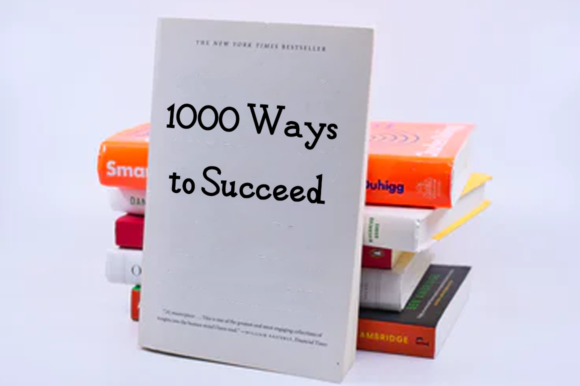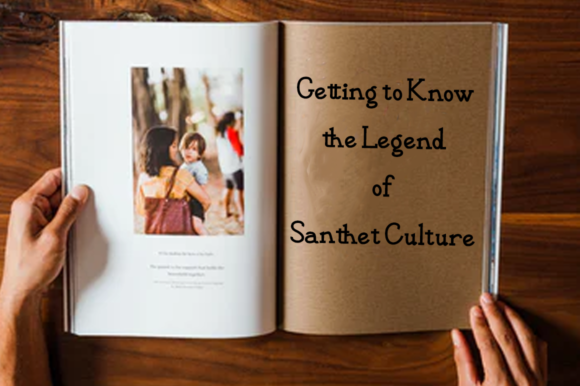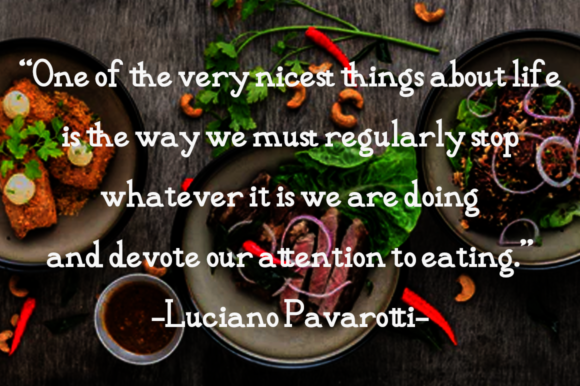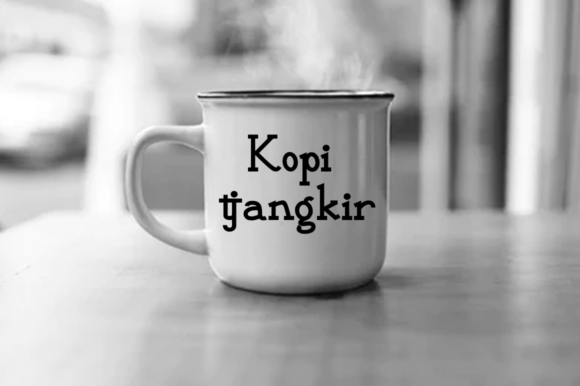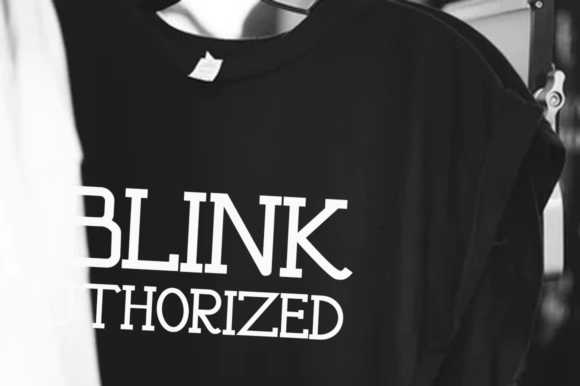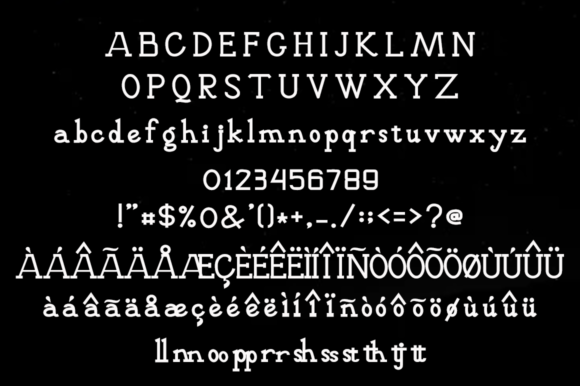
Dollopo Font: Elevate Your Crafting Ideas with a Cool and Adaptable Slab Serif Font
Are you a designer, crafter, or DIY enthusiast looking for a font that can add a touch of personality to your projects? Look no further than Dollopo, a cool and adaptable slab serif font that’s perfect for a wide range of crafting ideas. From cards and invitations to branding, labels, and more, Dollopo is the perfect addition to your font collection.
What is Dollopo Font?
Dollopo is a slab serif font that’s designed to be both stylish and versatile. Its unique blend of modern and classic elements makes it perfect for a variety of projects, from modern branding to vintage-inspired crafts. With its sturdy and dependable design, Dollopo is sure to make a statement in any project.
Features of Dollopo Font
So what makes Dollopo font so special? Here are just a few of its key features:
- Cool and Adaptable Design: Dollopo’s slab serif design is both modern and timeless, making it perfect for a wide range of projects.
- Highly Versatile: Whether you’re creating cards, branding, labels, or more, Dollopo is the perfect font to add a touch of personality to your project.
- Easy to Read: Despite its bold and sturdy design, Dollopo is surprisingly easy to read, making it perfect for both headlines and body text.
- Perfect for DIY Projects: Whether you’re a crafter, DIY enthusiast, or professional designer, Dollopo is the perfect font to add a personal touch to your projects.
Uses for Dollopo Font
So what can you use Dollopo font for? The possibilities are endless! Here are just a few ideas to get you started:
- Cards and Invitations: Add a personal touch to your cards and invitations with Dollopo’s unique and stylish design.
- Branding and Logo Design: Use Dollopo to create a bold and memorable brand identity that will stand out from the crowd.
- Labels and Packaging: Add a touch of personality to your labels and packaging with Dollopo’s versatile and adaptable design.
- DIY Crafts: From scrapbooking to woodworking, Dollopo is the perfect font to add a personal touch to your DIY projects.
Why Choose Dollopo Font?
So why choose Dollopo font over other fonts? Here are just a few reasons:
- Unique Design: Dollopo’s slab serif design is both stylish and timeless, making it perfect for a wide range of projects.
- Highly Versatile: Whether you’re creating cards, branding, labels, or more, Dollopo is the perfect font to add a touch of personality to your project.
- Easy to Use: With its simple and intuitive design, Dollopo is easy to use and customize, even for beginners.
In conclusion, Dollopo font is a cool and adaptable slab serif font that’s perfect for a wide range of crafting ideas. With its unique design, highly versatile features, and ease of use, Dollopo is the perfect addition to your font collection. Whether you’re a designer, crafter, or DIY enthusiast, Dollopo is sure to elevate your projects and add a touch of personality to your creations. So why wait? Add Dollopo to your font collection today and see the amazing results for yourself!